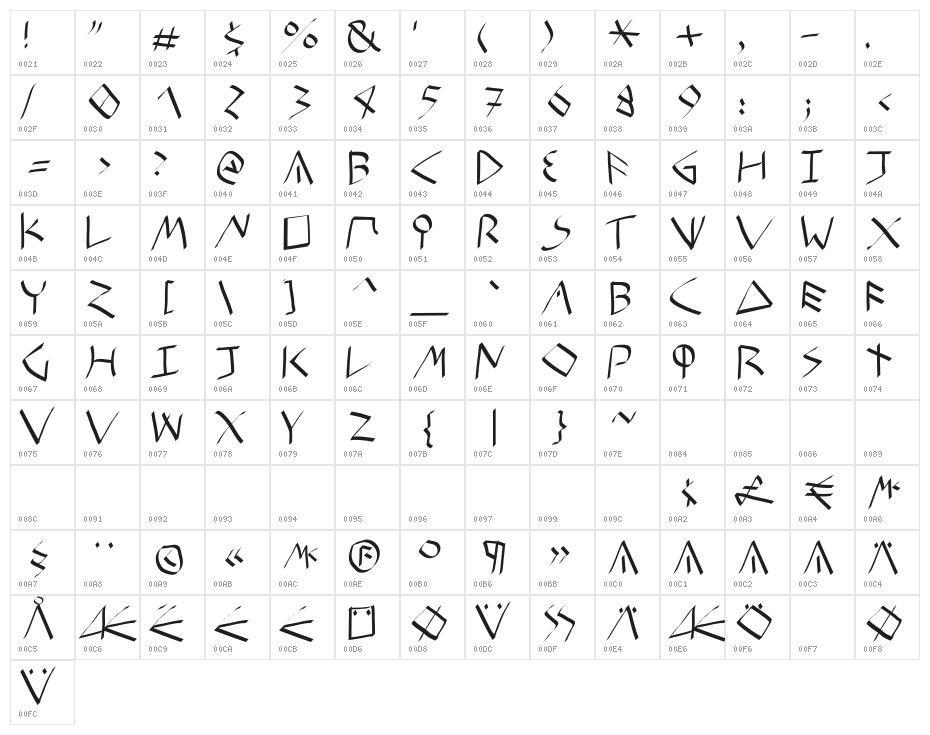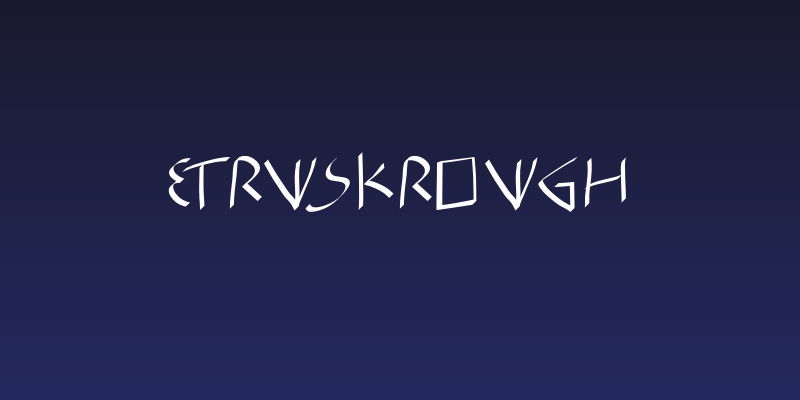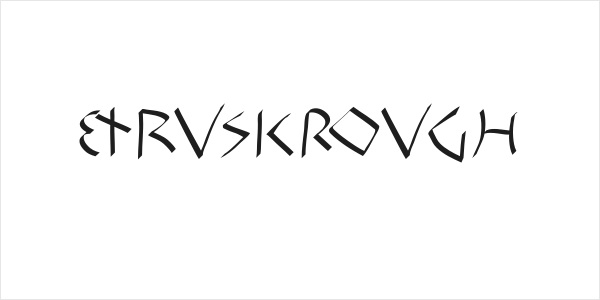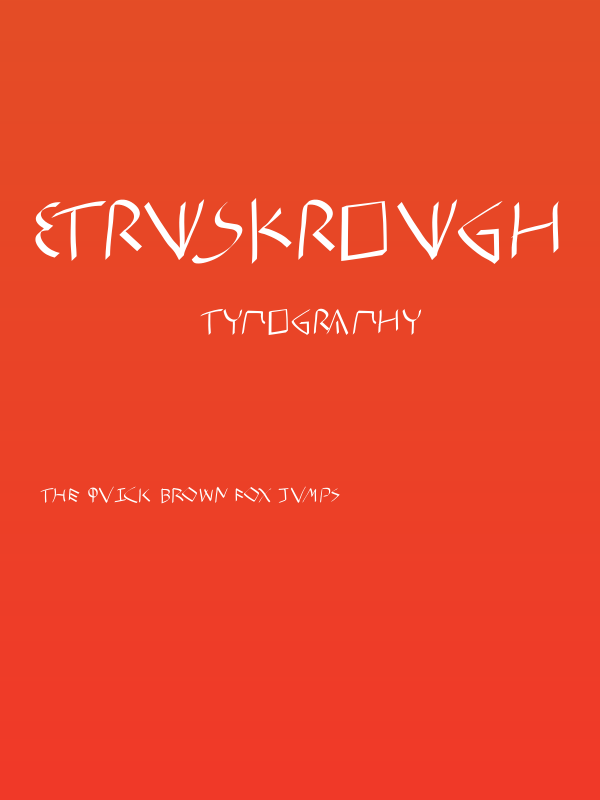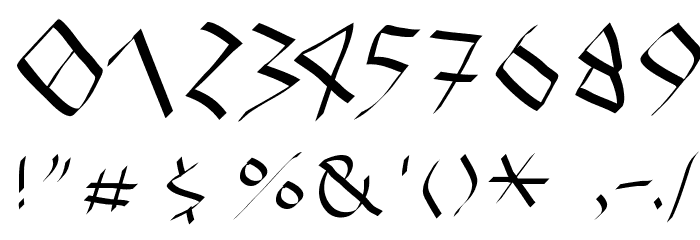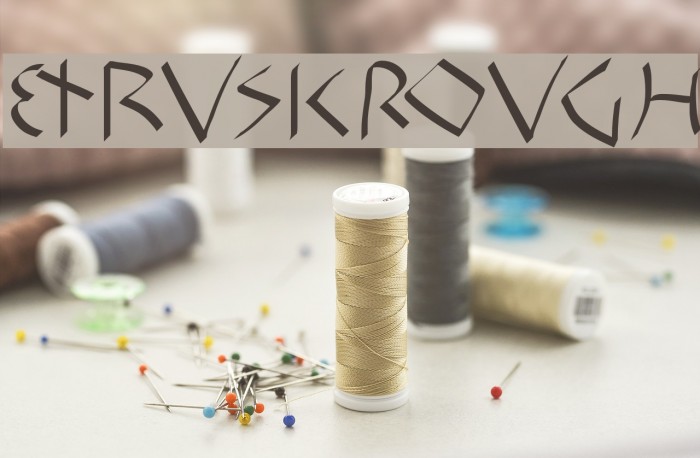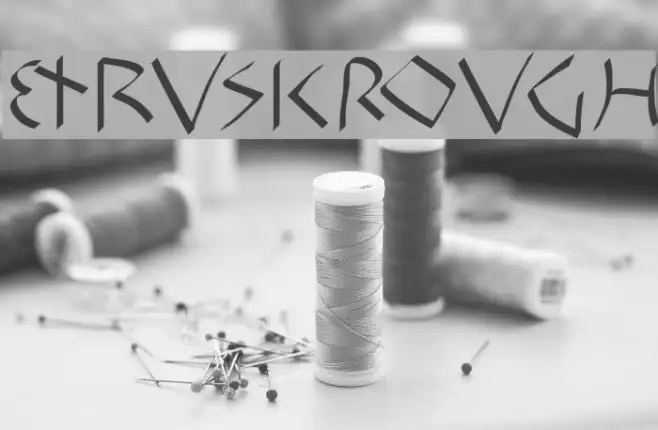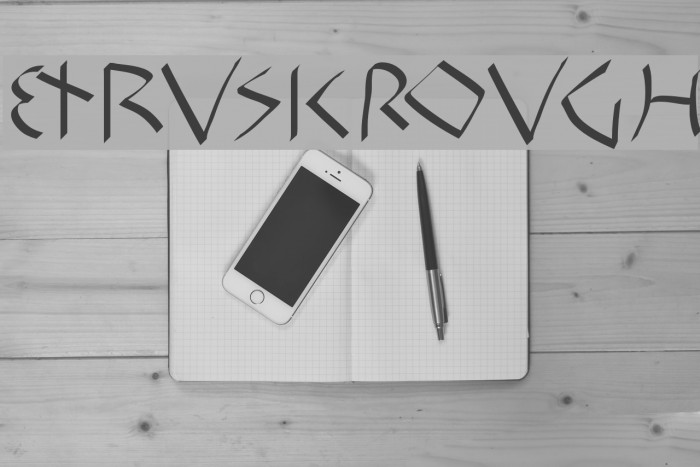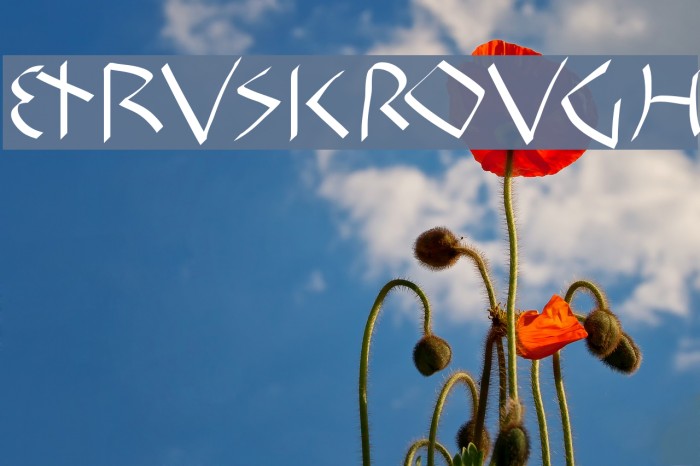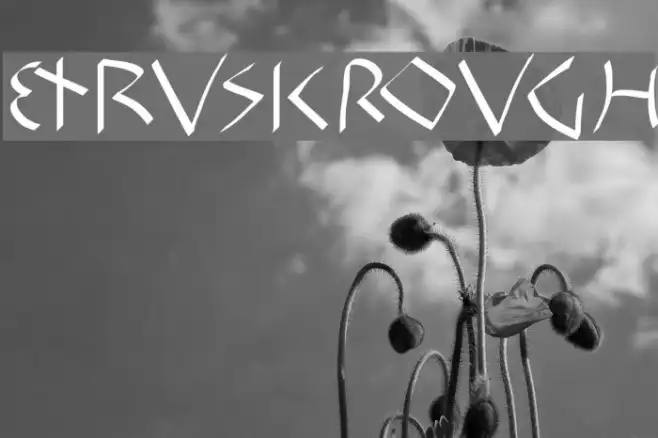
EtruskRough Font
EtruskRough Description
This font features a distinctive and edgy design with sharp, angular lines and a rough, hand-drawn appearance. The characters are bold and striking, with unique geometric shapes that give them a dynamic and energetic feel. The uppercase and lowercase letters maintain a consistent style, while the numbers and special characters complement the overall aesthetic. The font's irregular edges and varying stroke widths contribute to its rugged and ancient look, reminiscent of historical or tribal inscriptions. This style is perfect for projects that require a bold and unconventional typeface.
| Use Case | Logos, Headlines, Posters |
| Proposed Projects | Ideal for branding, posters, album covers, and any project seeking a bold, historical, or tribal aesthetic. |